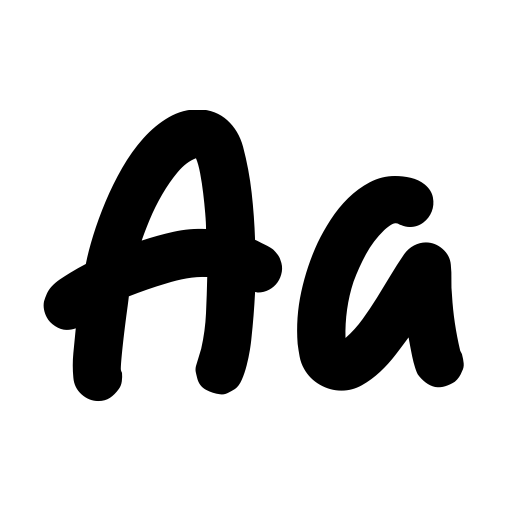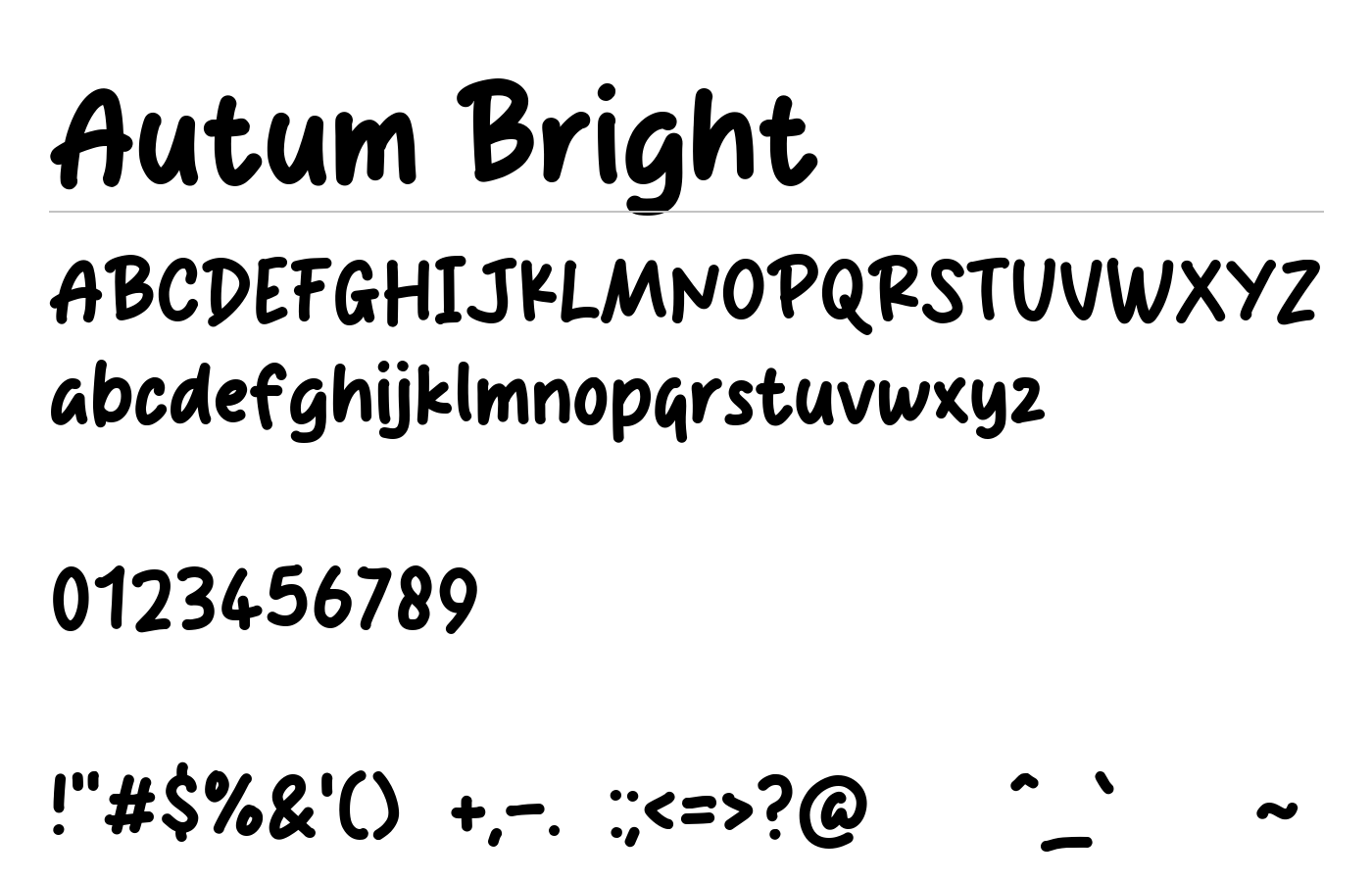
Autum Bright is a casual, friendly handwritten font with a rounded, playful style and a balanced medium weight that makes it highly readable. Its lively character shapes and informal script feel make it perfect for creative projects, children's content, or branding that aims to convey warmth and approachability. This font works well in headlines, logos, and packaging where a personal, inviting touch is desired.
Autum Bright Font
About Autum Bright Font